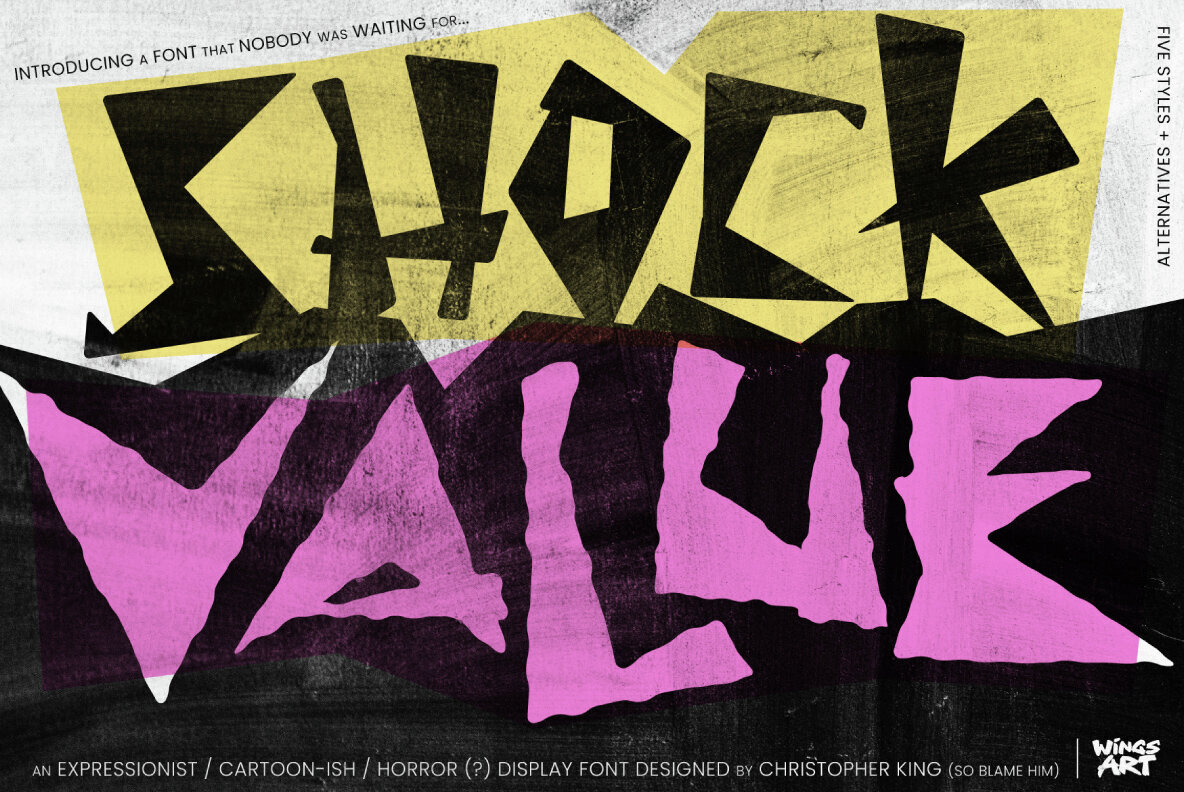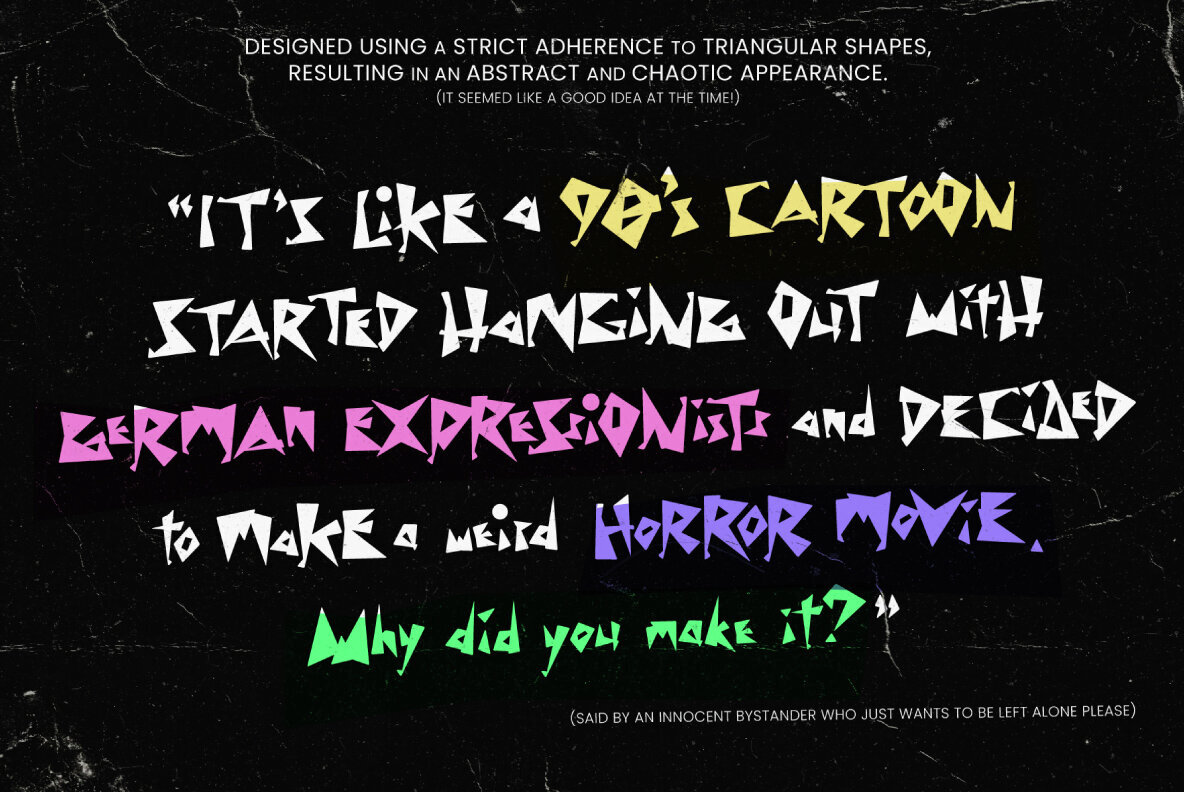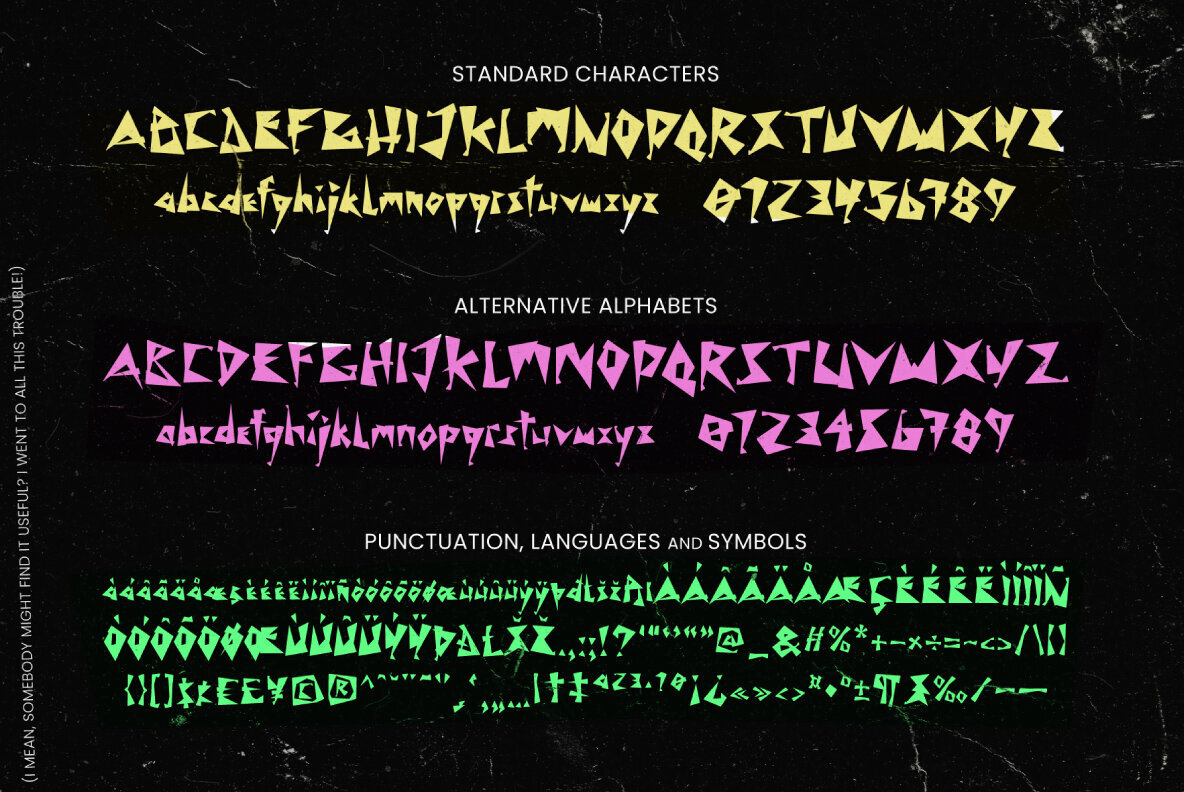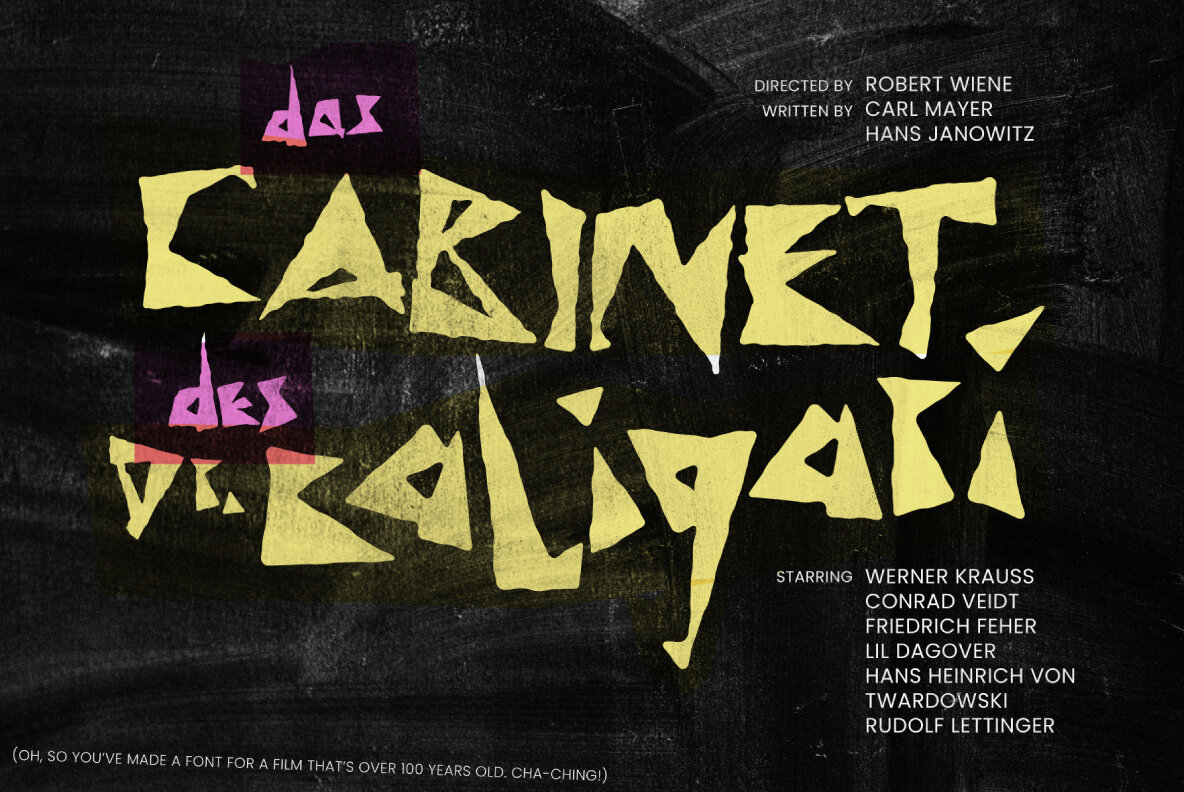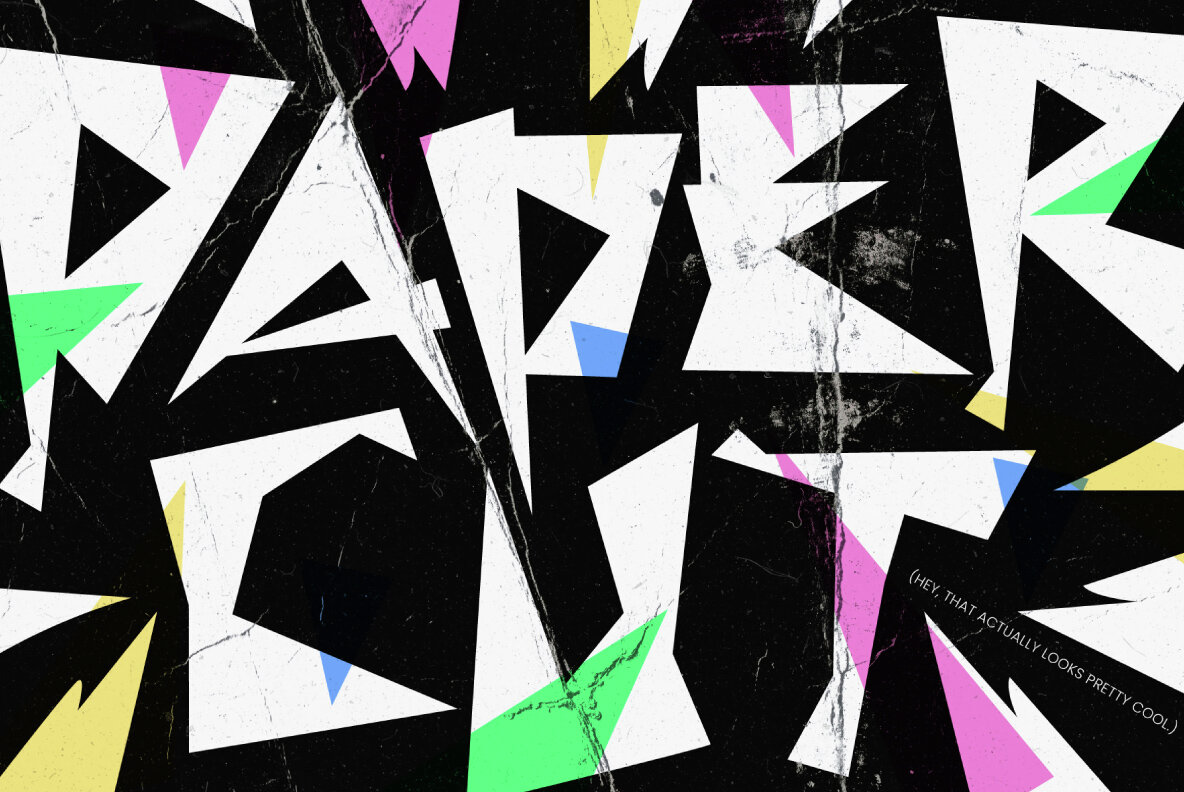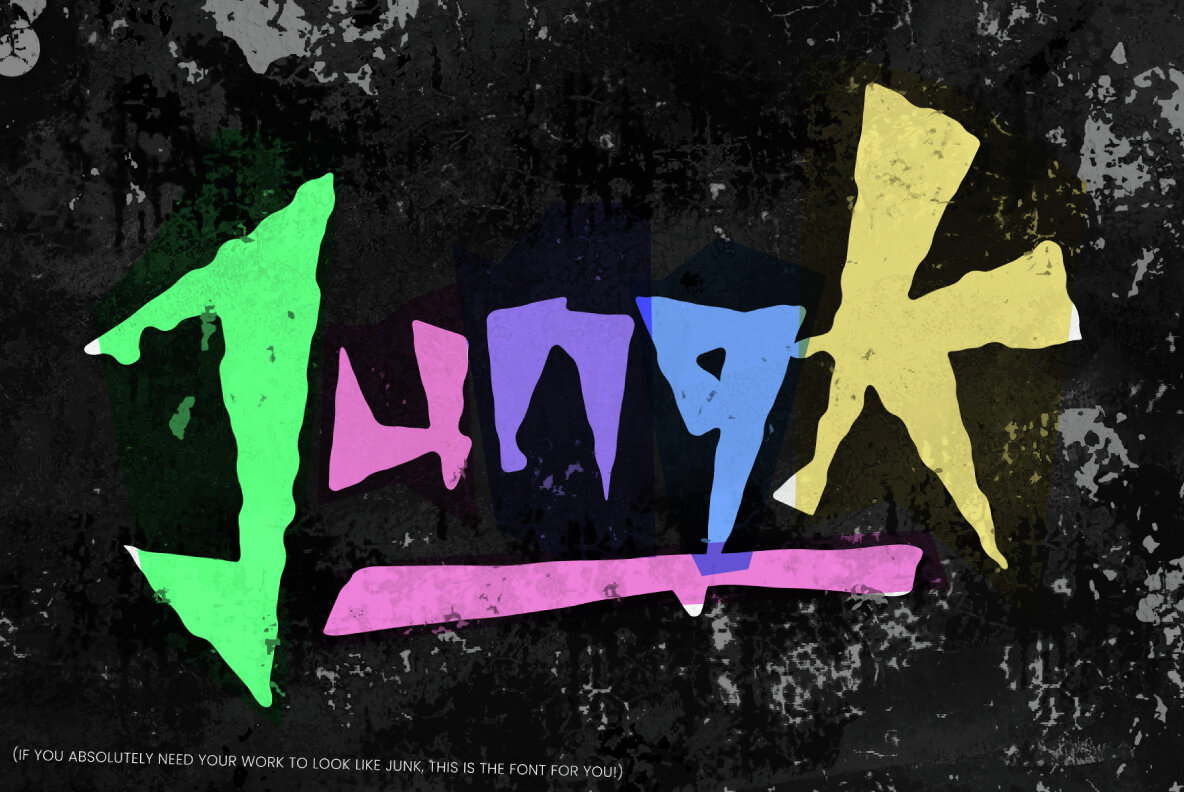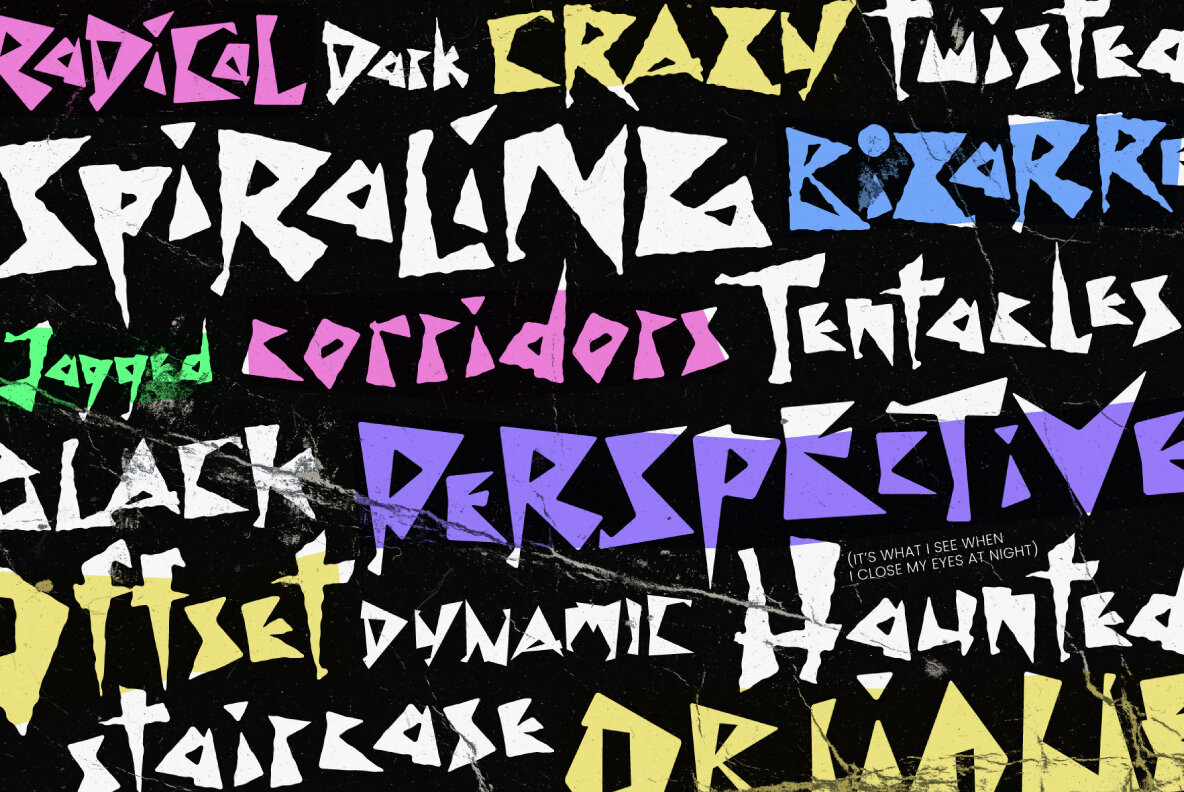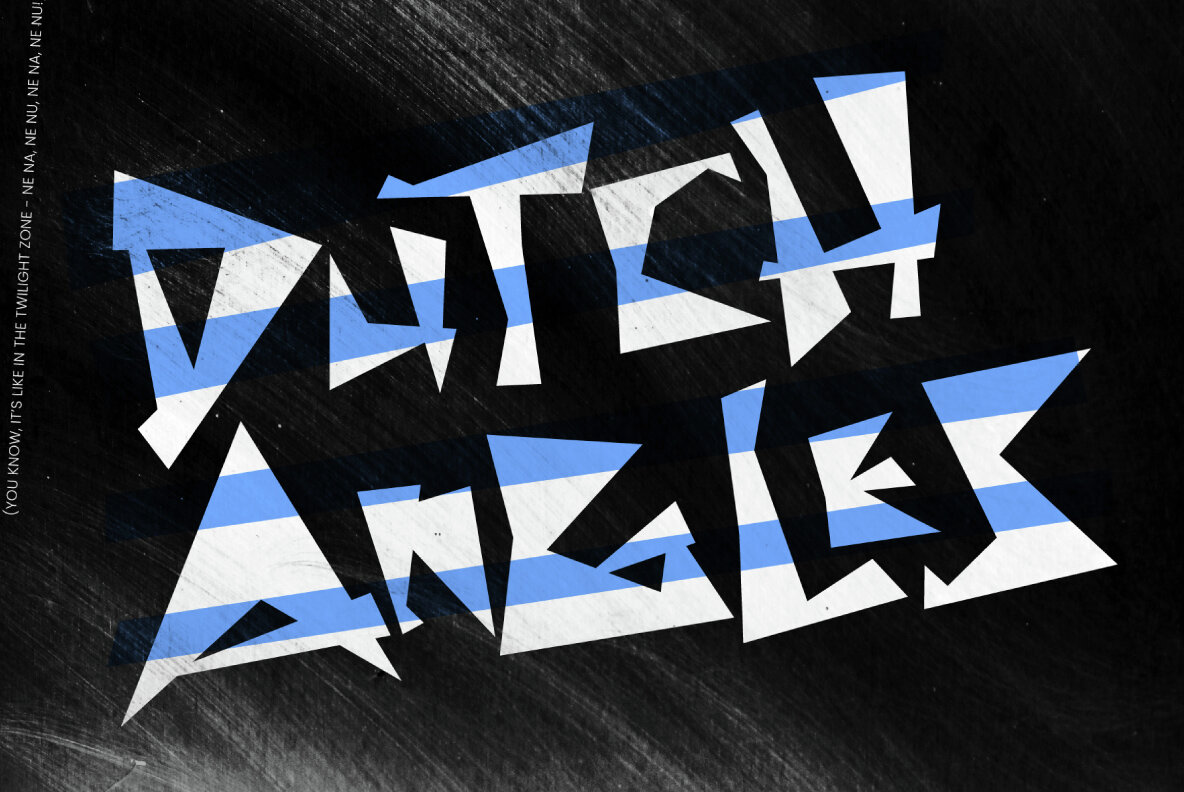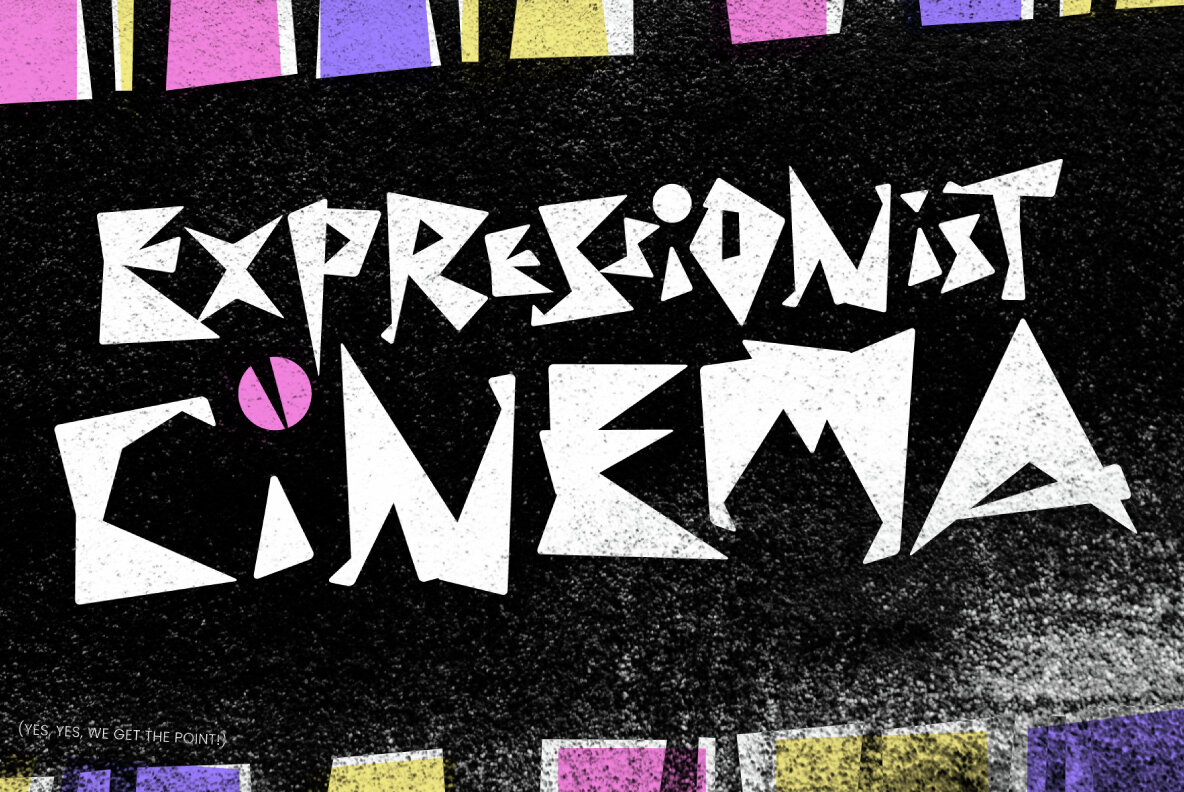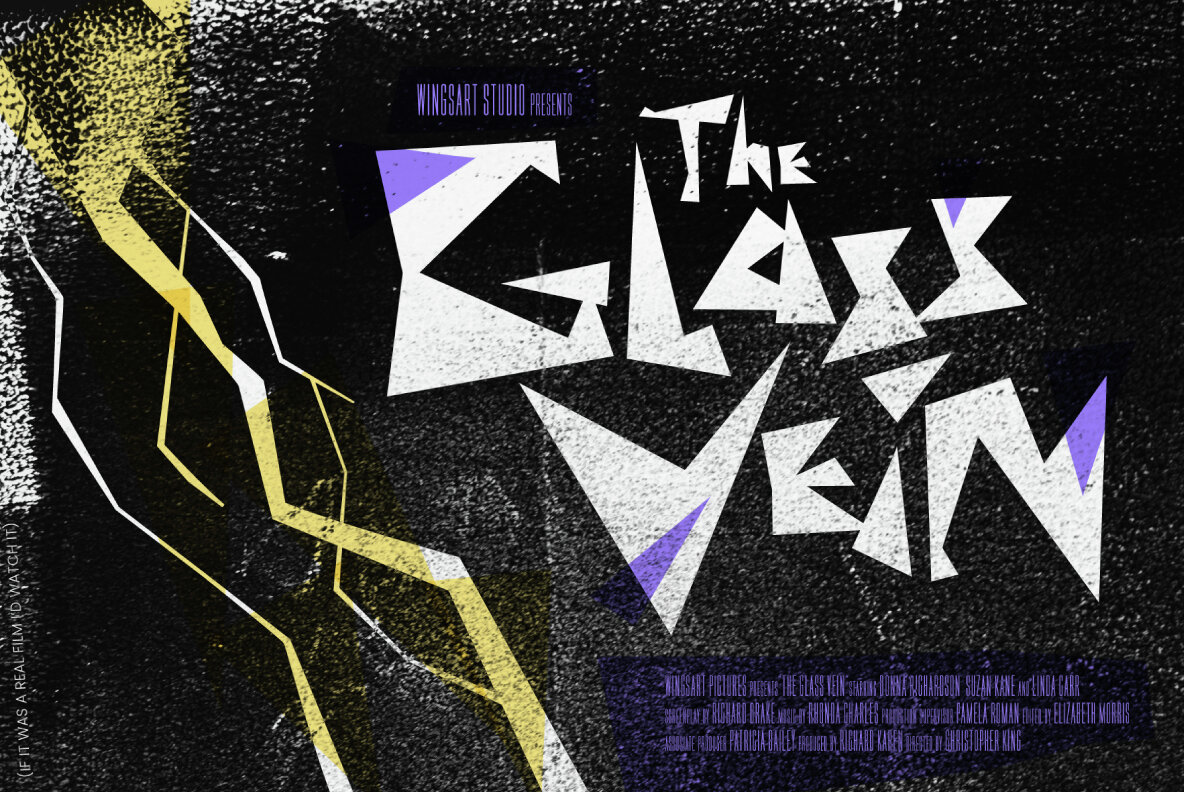
Shock Value Font
Shock Value Semi
Shock Value Semi Alt
Shock Value Round
Shock Value Round Alt
Shock Value Shake
Shock Value Shake Alt
Shock Value Spike
Shock Value Spike Alt
Shock Value Twist
Shock Value Twist Alt
Shock Value is a compelling display font that channels the idiosyncratic energy of German Expressionist cinema and the playful edge of 90s cartoons. This font's unconventional and chaotic design brilliantly suits projects infused with humor and a touch of the avant-garde. Whether you're designing for a niche audience or crafting a standout title, Shock Value offers an audacious choice that commands attention.Shock Value: A Bold Display Typeface